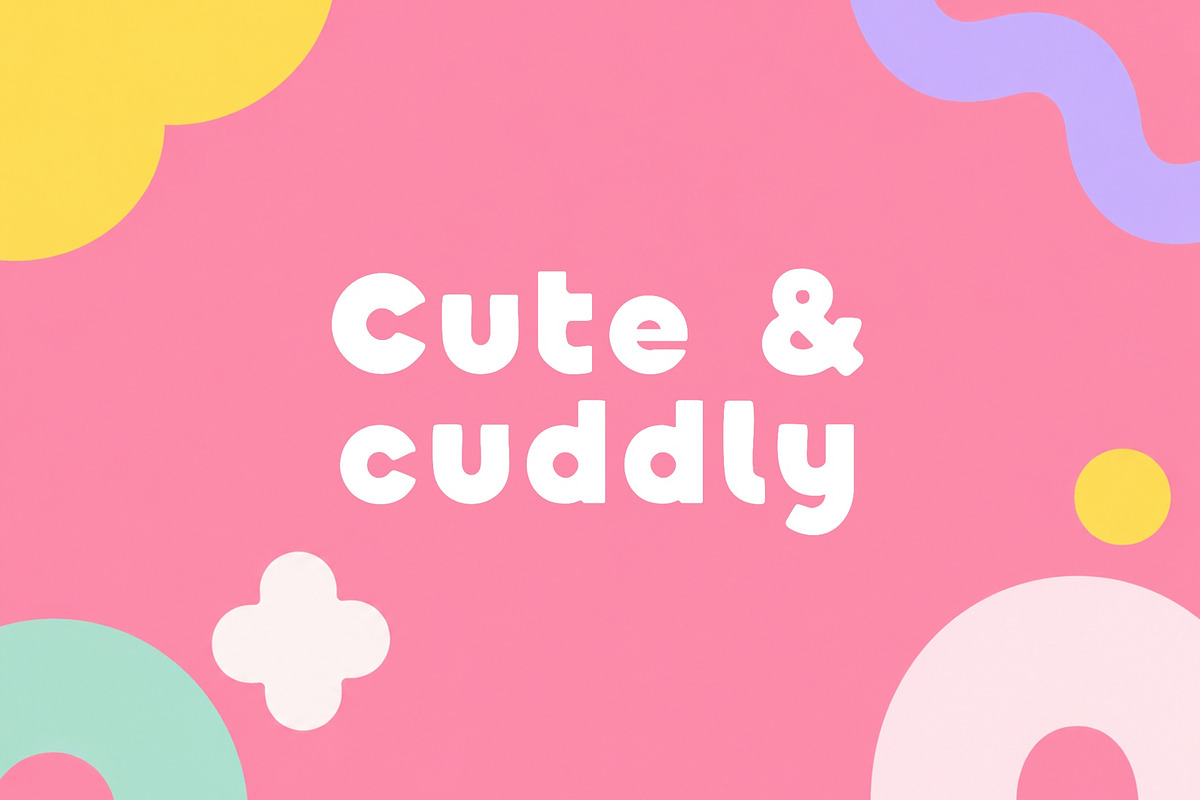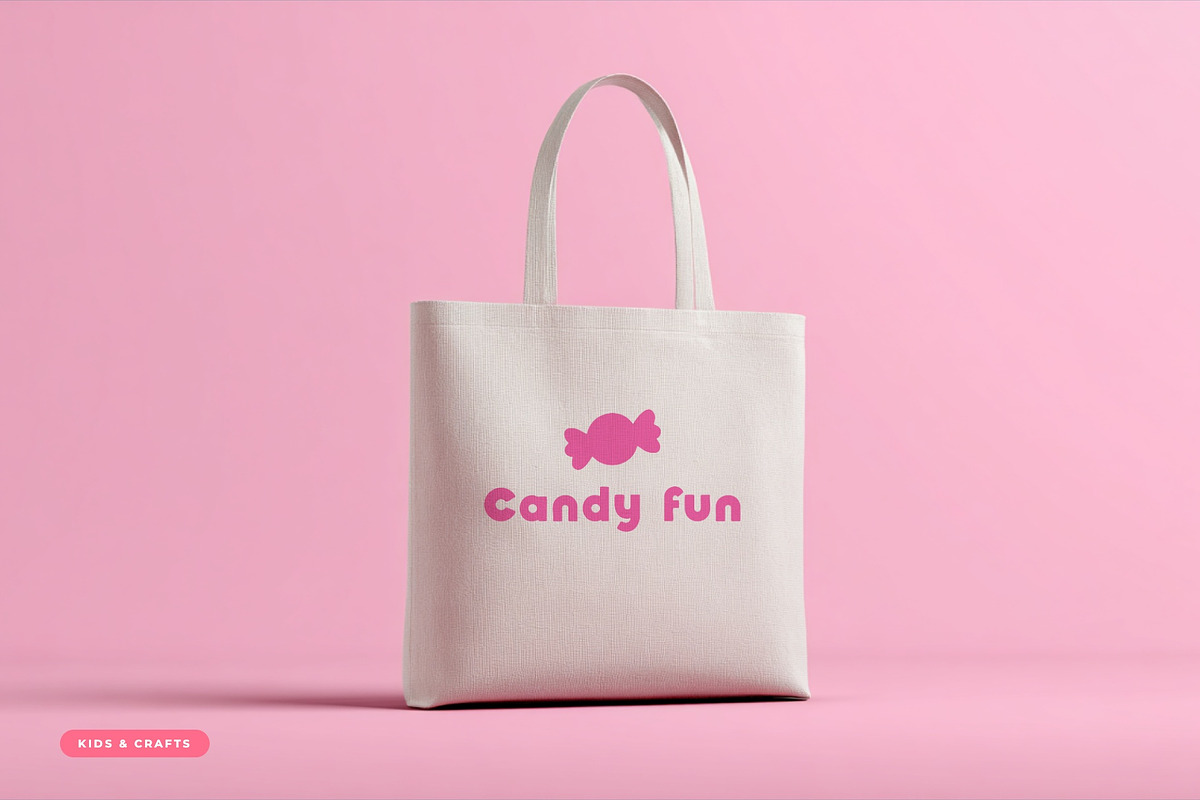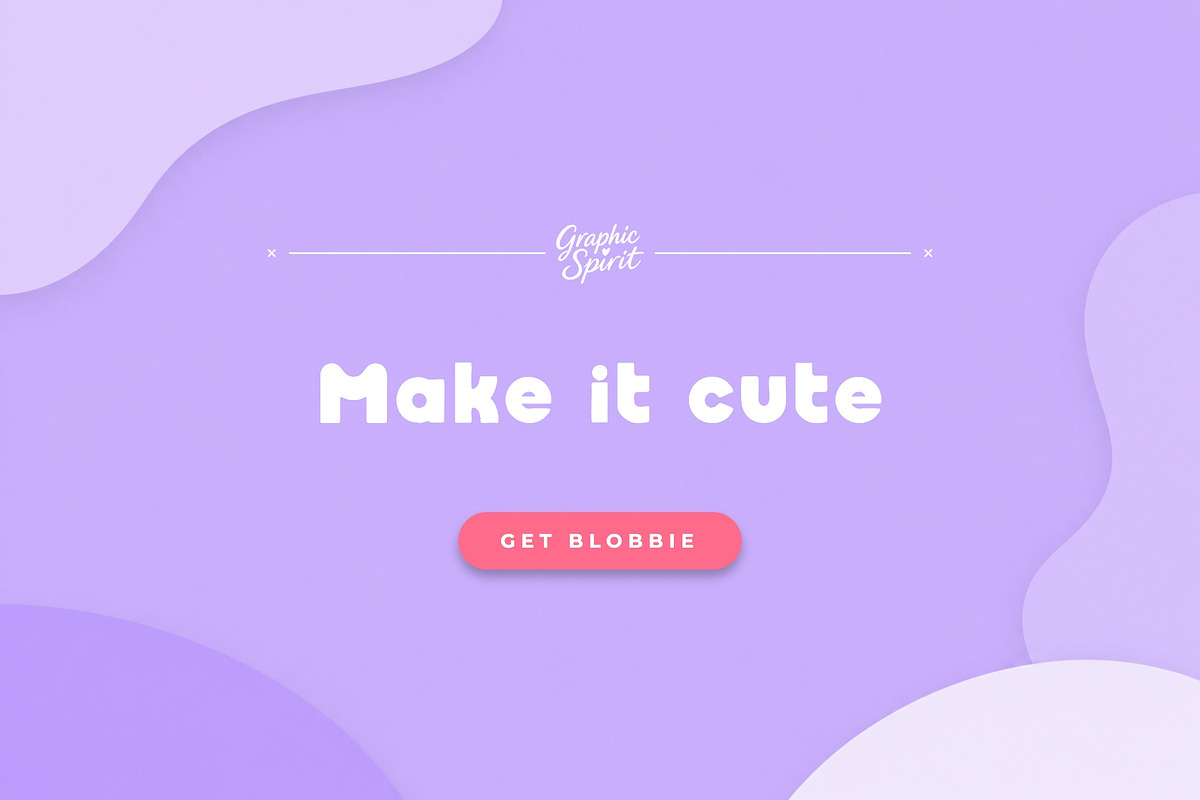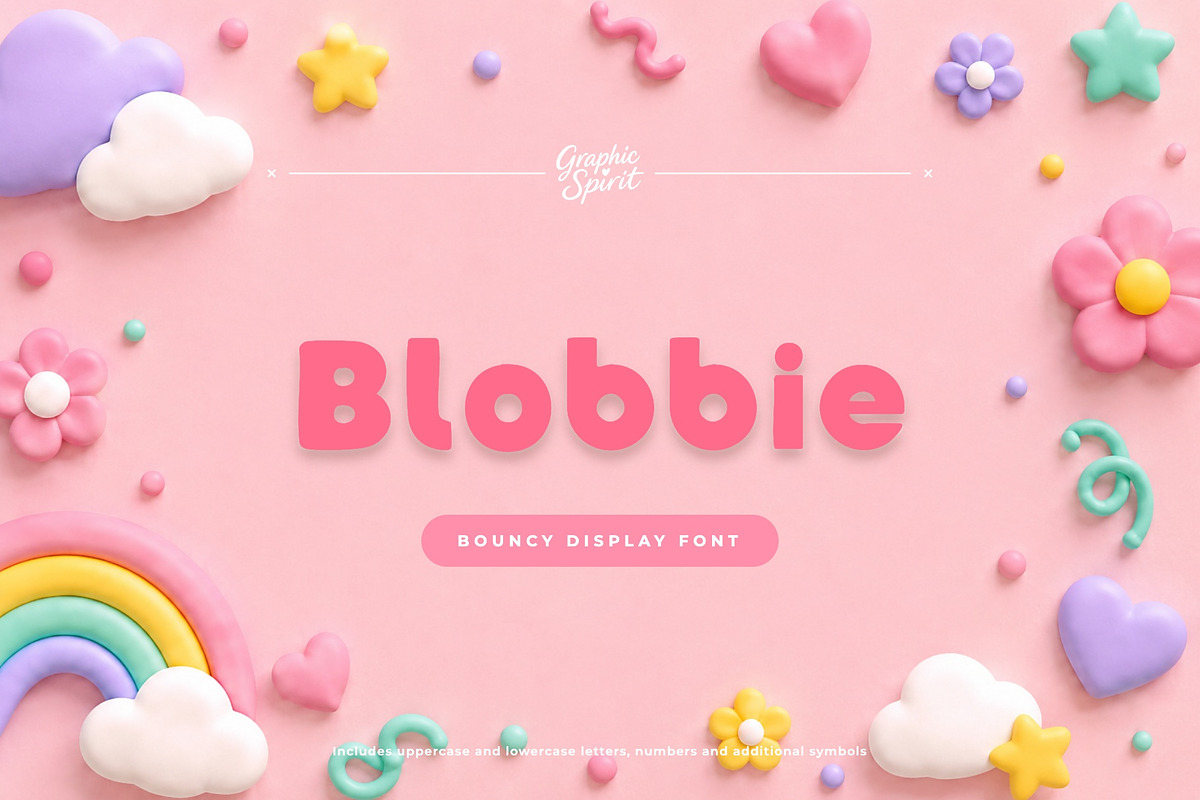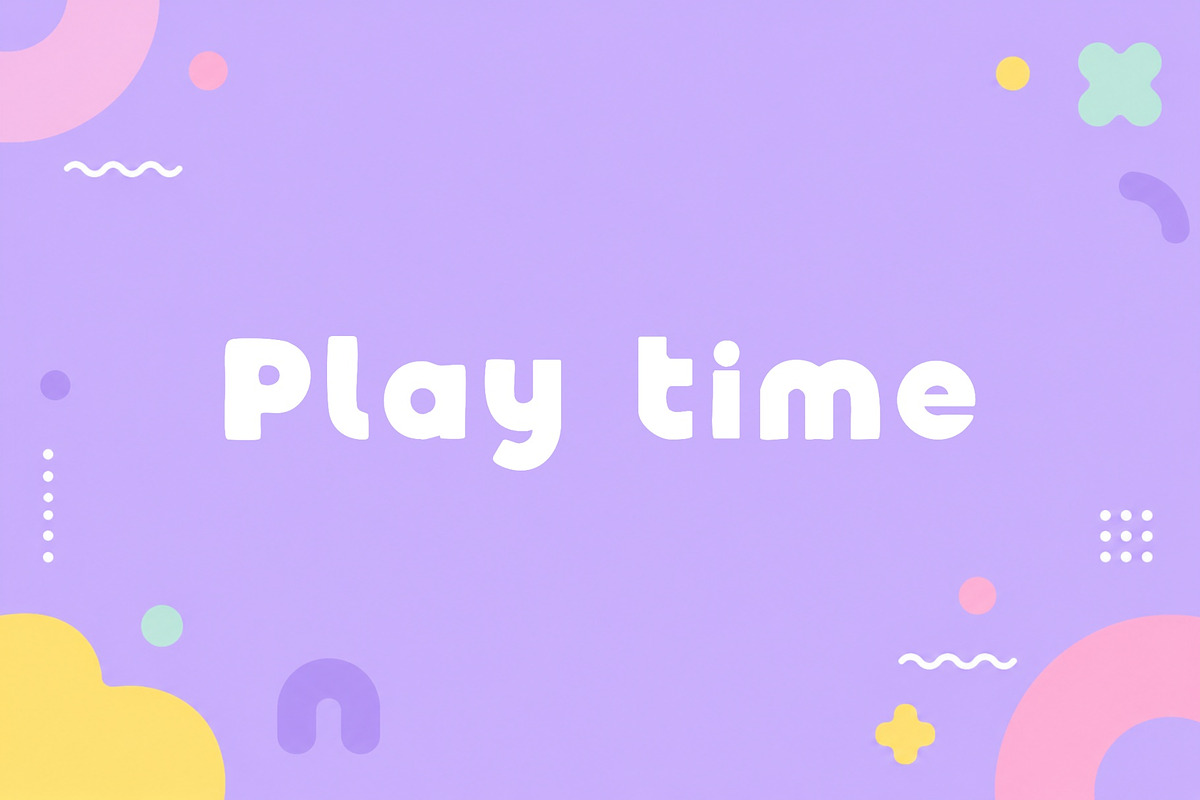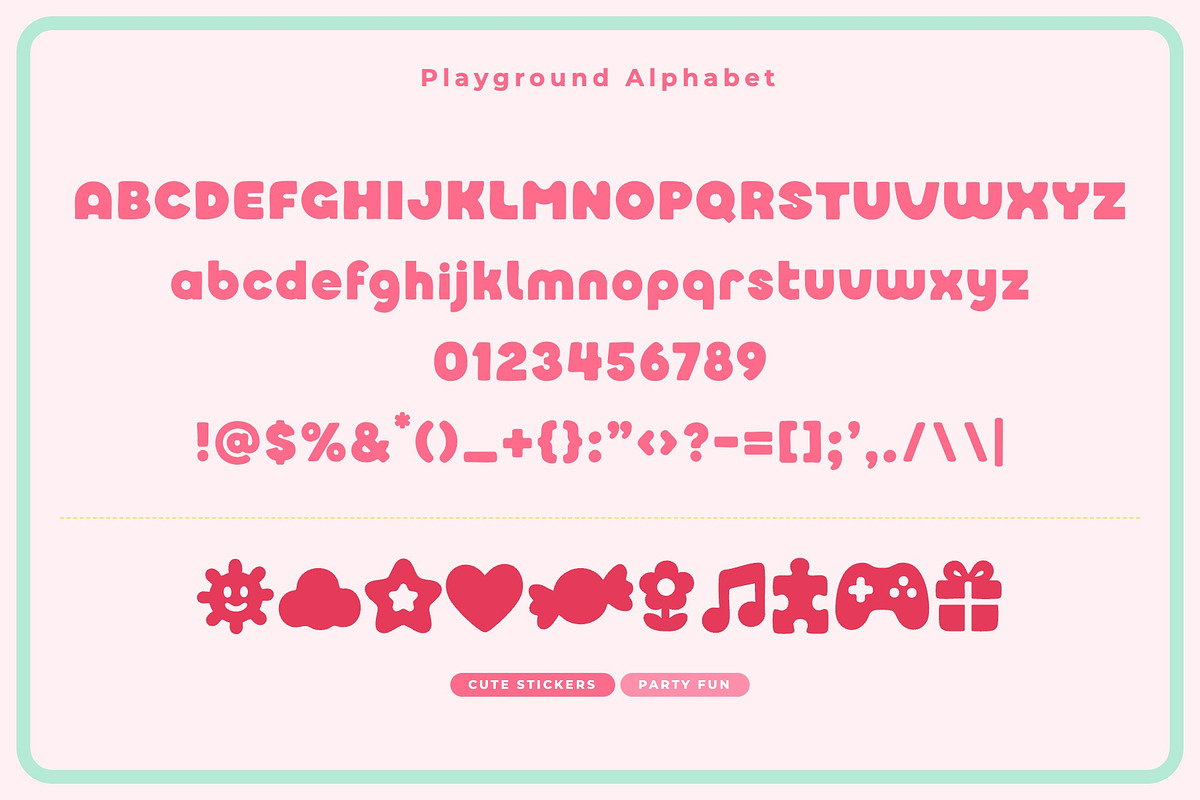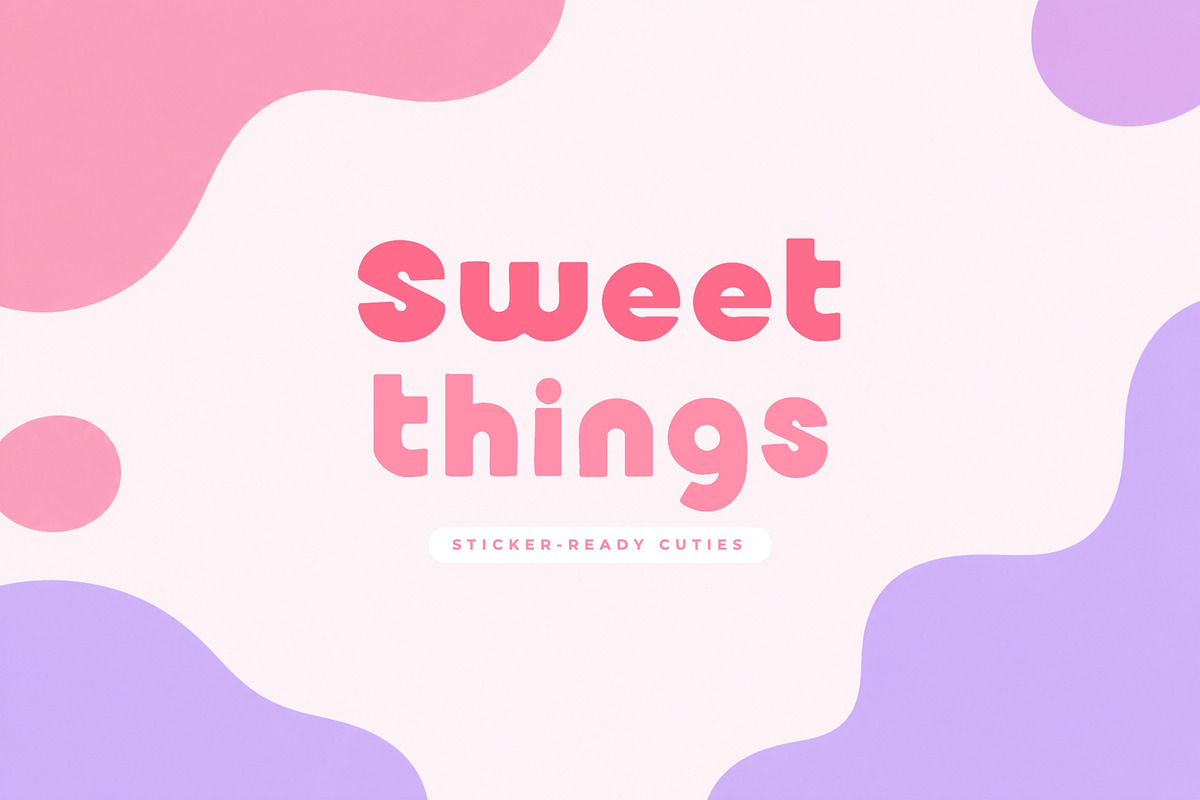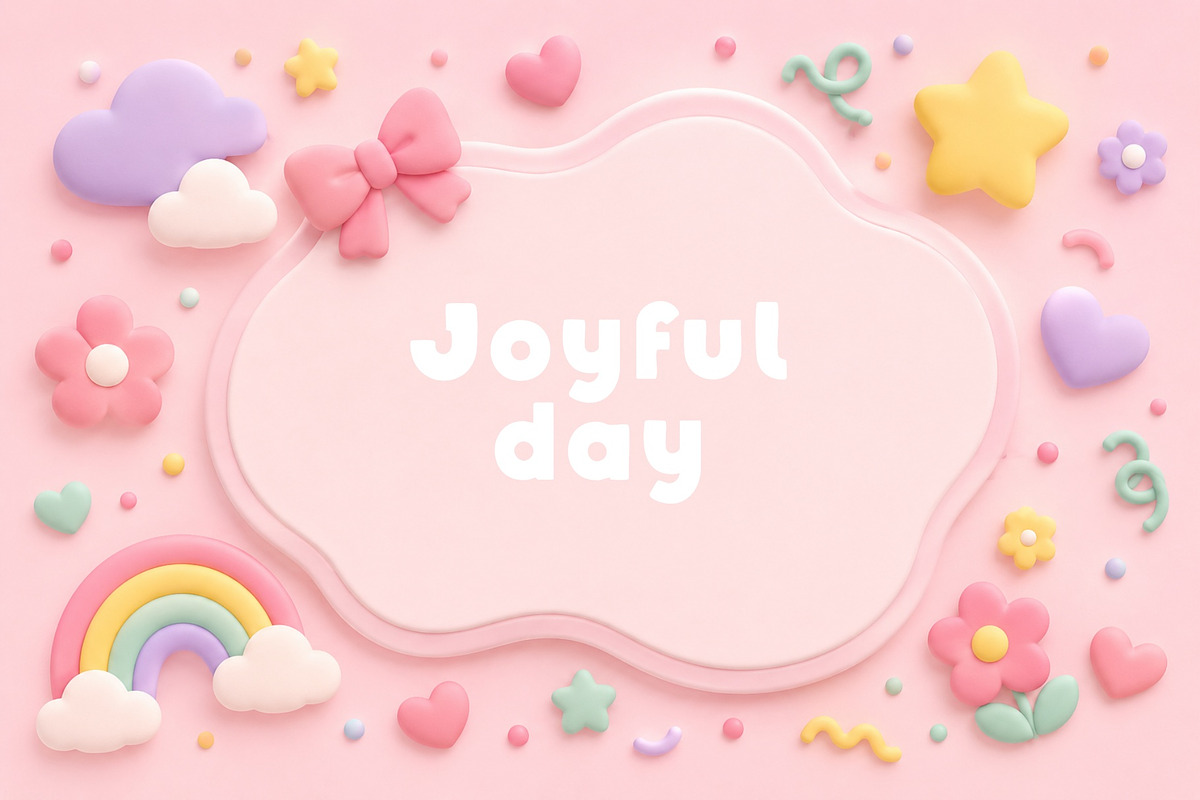
Blobbie Font
✨ Blobbie is a bouncy playful display font with round bubbly letters, candy-bright colors, and joyful handmade character. It was created for designers, makers, and small brands who need expressive typography with a clear visual personality.
🎨 Blobbie works beautifully for playful logos, kids branding, party graphics, toy packaging, cute posters, children titles, craft products, fun social graphics. The style is strong enough for headlines and product names, but still friendly enough for approachable branding, packaging, posters, labels, social graphics, and creative layouts.
💛 The typeface has a distinct display rhythm, so even short words feel designed and intentional. It is a useful choice when you want a project to feel crafted, memorable, and visually specific.
Best for:
- 🍬 Playful logos and cheerful branding
- 🎈 Party graphics and kids titles
- 🧸 Toy packaging and cute products
- 🌈 Colorful posters and social graphics
- 💛 Bouncy display typography